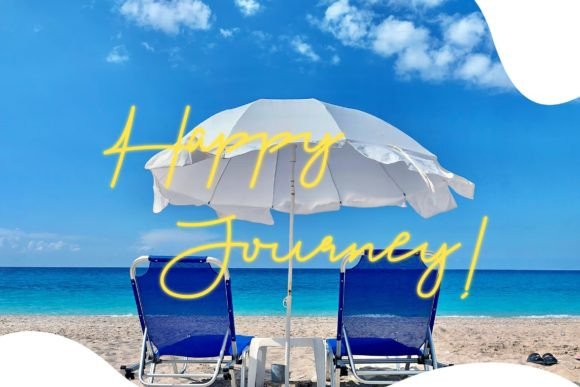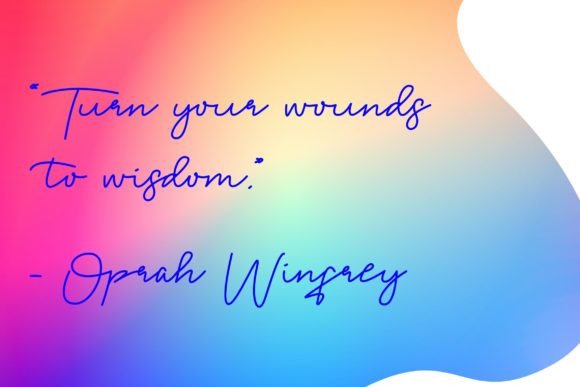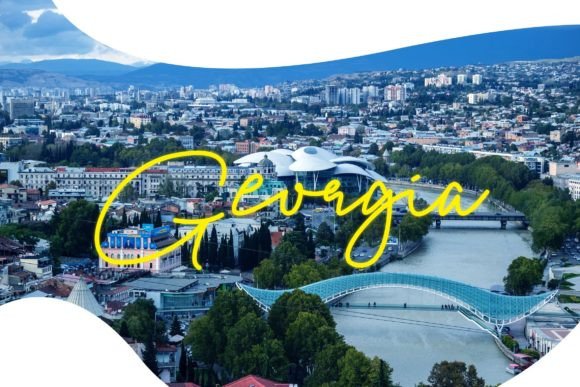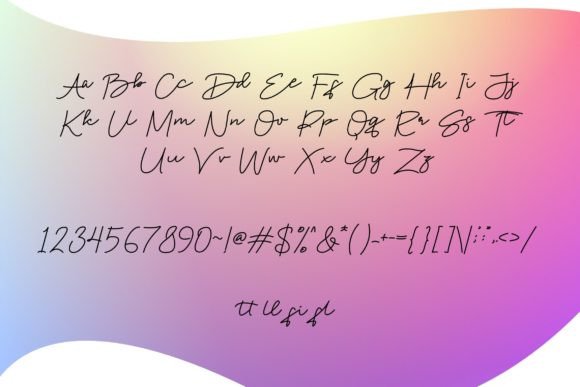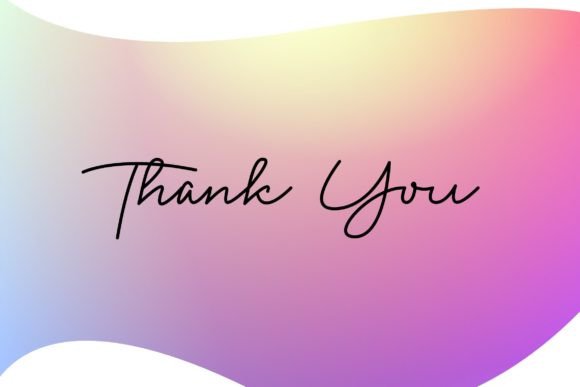
Bollenti Font: Adding a Touch of Whimsy to Your Designs
In the world of typography, fonts play a crucial role in conveying the tone and personality of a brand or design. If you’re looking for a script font that exudes playfulness and fun, look no further than Bollenti. This charming font is perfect for adding a touch of whimsy to your social media content, greeting cards, crafts, and more.
What is Bollenti Font?
Bollenti is a script font characterized by its soft lines and gentle curves. Its unique design makes it an excellent choice for designers and crafters who want to add a personal touch to their work. The font’s playful and fun nature makes it ideal for a variety of projects, from digital content to handmade crafts.
Key Features of Bollenti Font
- Soft Lines: Bollenti’s soft lines give it a distinctive and elegant look that’s perfect for creating visually appealing designs.
- Playful and Fun: The font’s playful nature makes it an excellent choice for designs that require a touch of whimsy and personality.
- Script Style: Bollenti’s script style makes it perfect for adding a personal touch to your designs, from greeting cards to social media content.
- Versatile: This font can be used for a wide range of projects, including digital content, print materials, and handmade crafts.
Uses of Bollenti Font
Bollenti’s versatility makes it an excellent choice for various design projects. Here are some ideas to get you started:
- Social Media Content: Add a touch of personality to your social media posts with Bollenti. Use it to create eye-catching captions, quotes, or messages that will engage your audience.
- Greeting Cards: Create personalized greeting cards for special occasions, such as birthdays, weddings, or holidays. Bollenti’s playful nature makes it perfect for adding a touch of whimsy to your cards.
- Crafts: Bollenti is an excellent choice for crafters who want to add a personal touch to their projects. Use it to create handmade cards, gift tags, or other paper crafts.
- Digital Products: Use Bollenti to create digital products, such as printable art, planners, or journals. The font’s soft lines and playful nature make it perfect for creating visually appealing designs.
Tips for Using Bollenti Font
To get the most out of Bollenti, here are some tips to keep in mind:
- Pair it with Other Fonts: Experiment with pairing Bollenti with other fonts to create visually appealing combinations. You can pair it with sans-serif fonts for a modern look or with serif fonts for a more traditional feel.
- Use it for Headings: Bollenti’s playful nature makes it perfect for using as a heading font. Use it to create eye-catching titles or headings that will grab attention.
- Experiment with Colors: Bollenti looks great in a variety of colors. Experiment with different colors to find the one that works best for your design.
- Keep it Simple: Don’t be afraid to keep it simple. Bollenti’s soft lines and playful nature make it perfect for creating simple yet effective designs.
Bollenti font is a versatile and charming script font that’s perfect for adding a touch of whimsy to your designs. Its soft lines and playful nature make it an excellent choice for a wide range of projects, from social media content to handmade crafts. With its unique design and versatility, Bollenti is sure to become a favorite among designers and crafters.